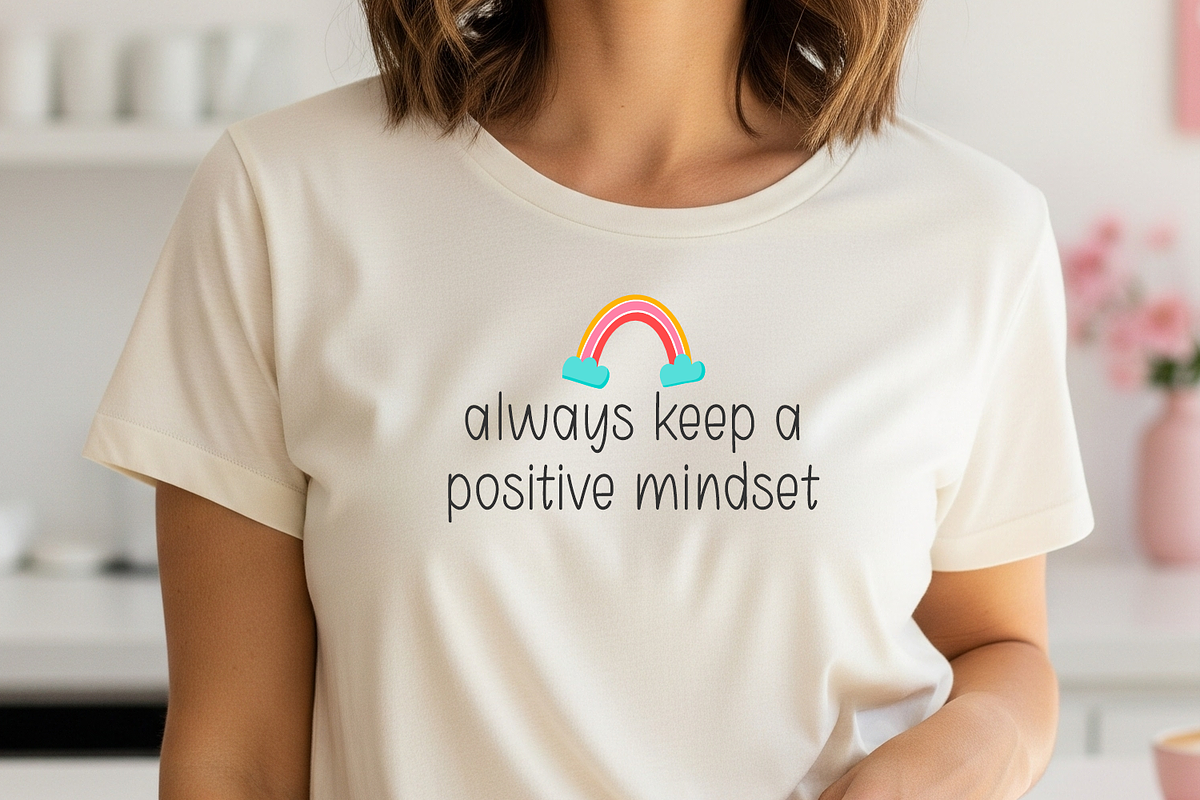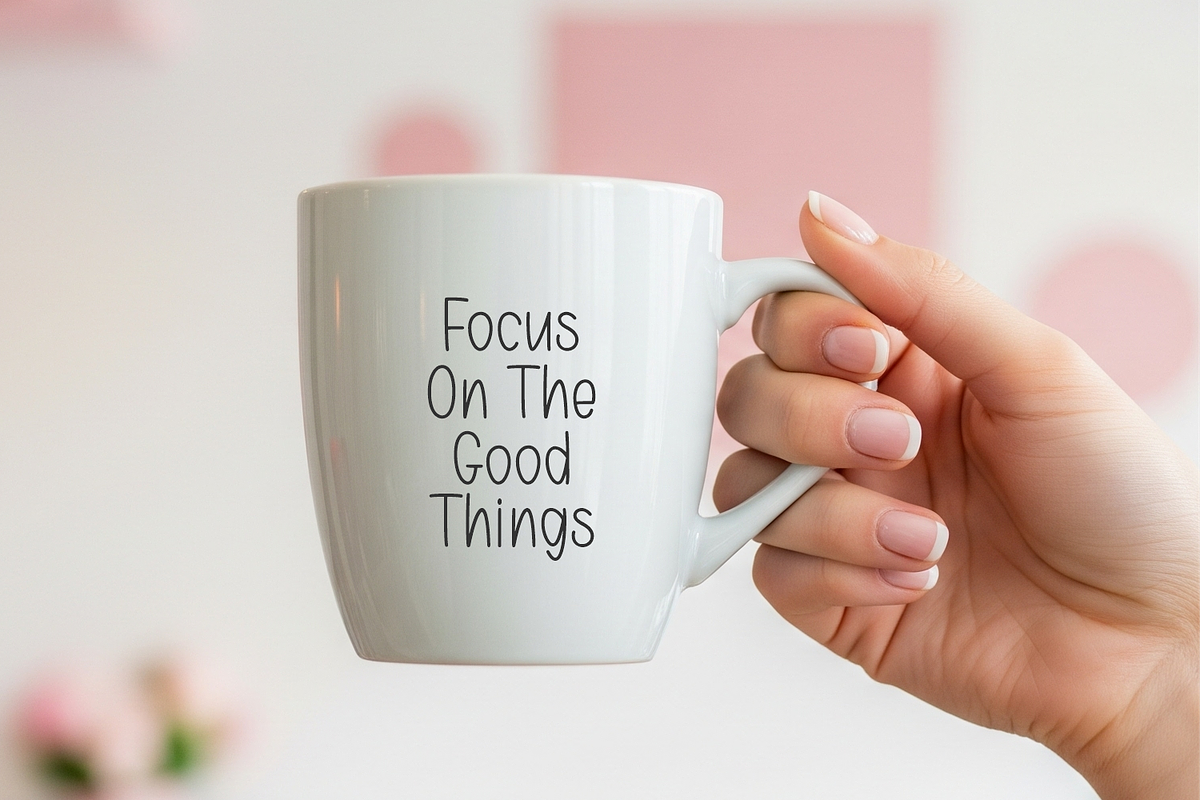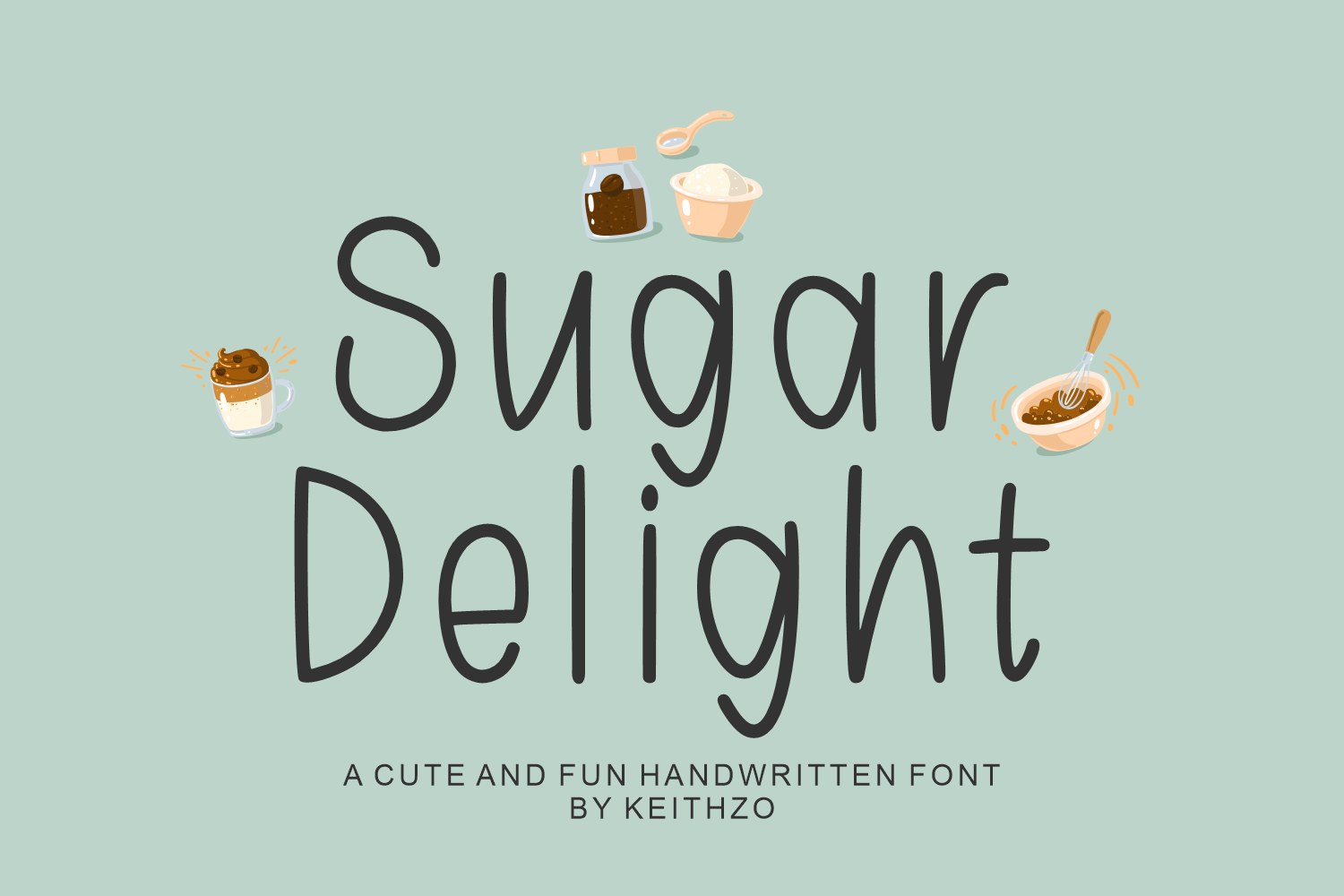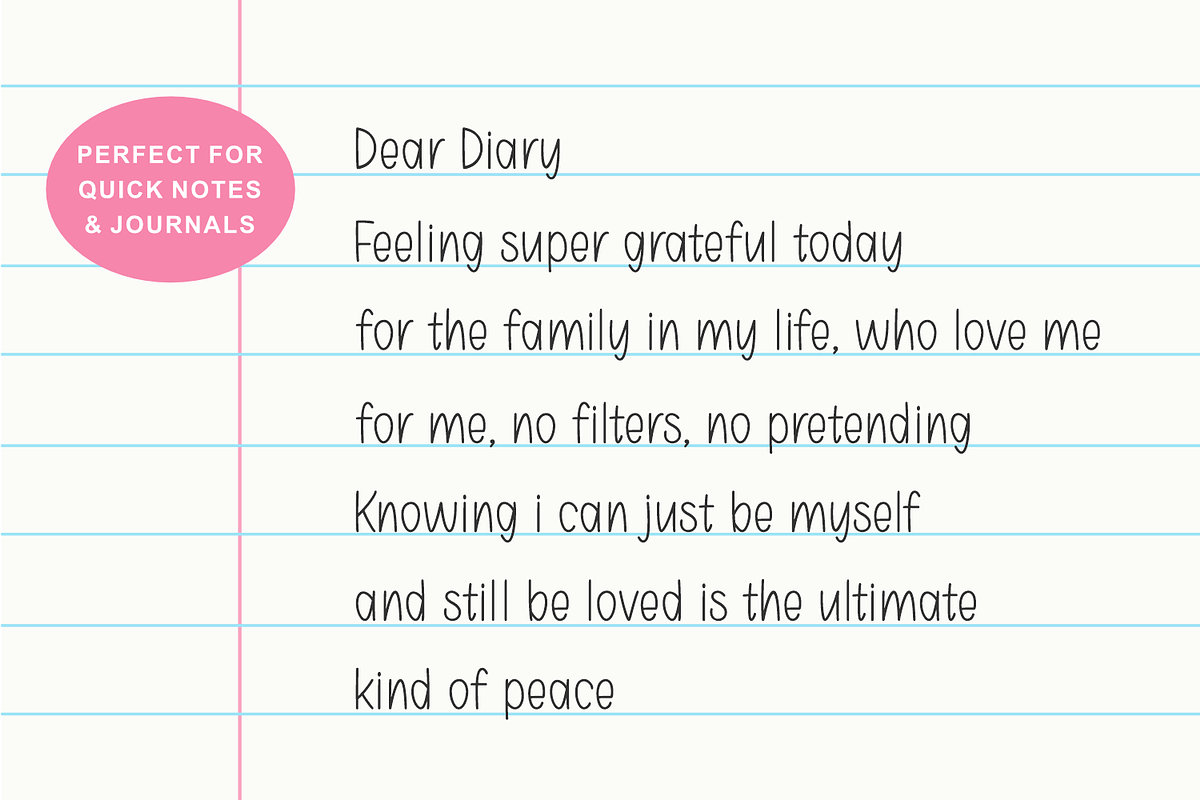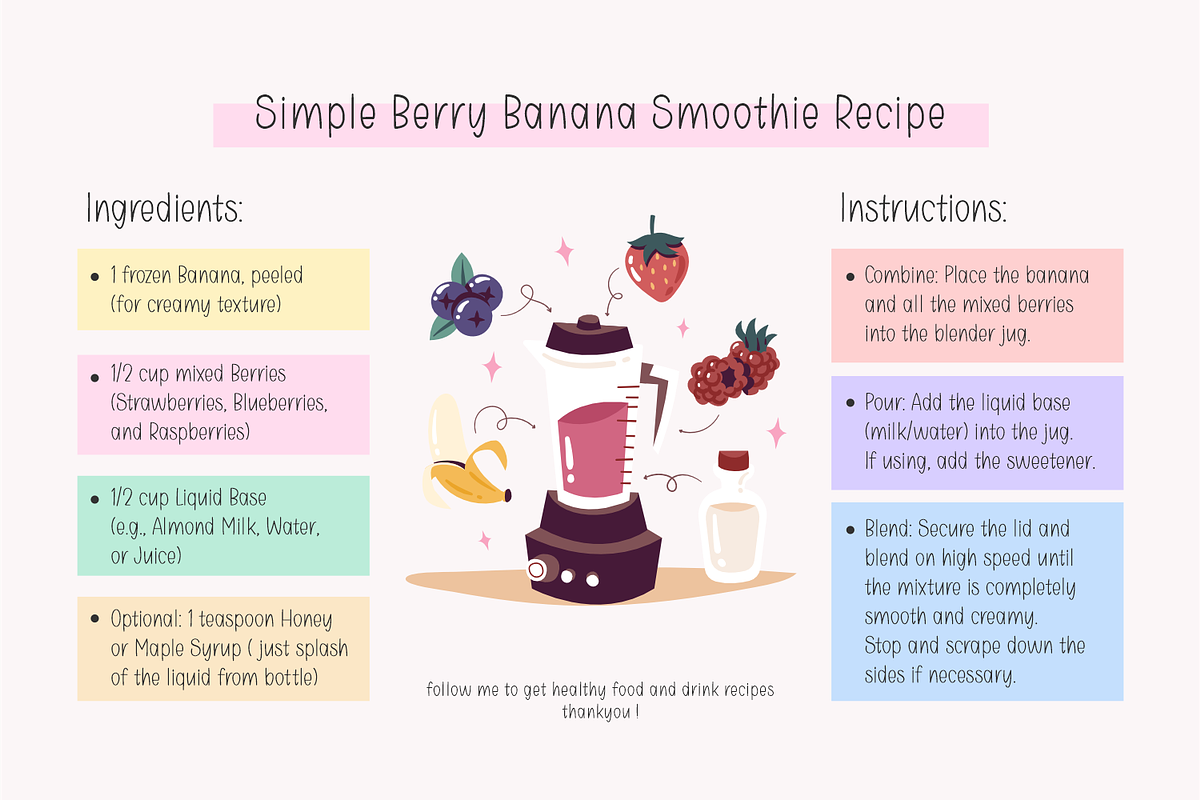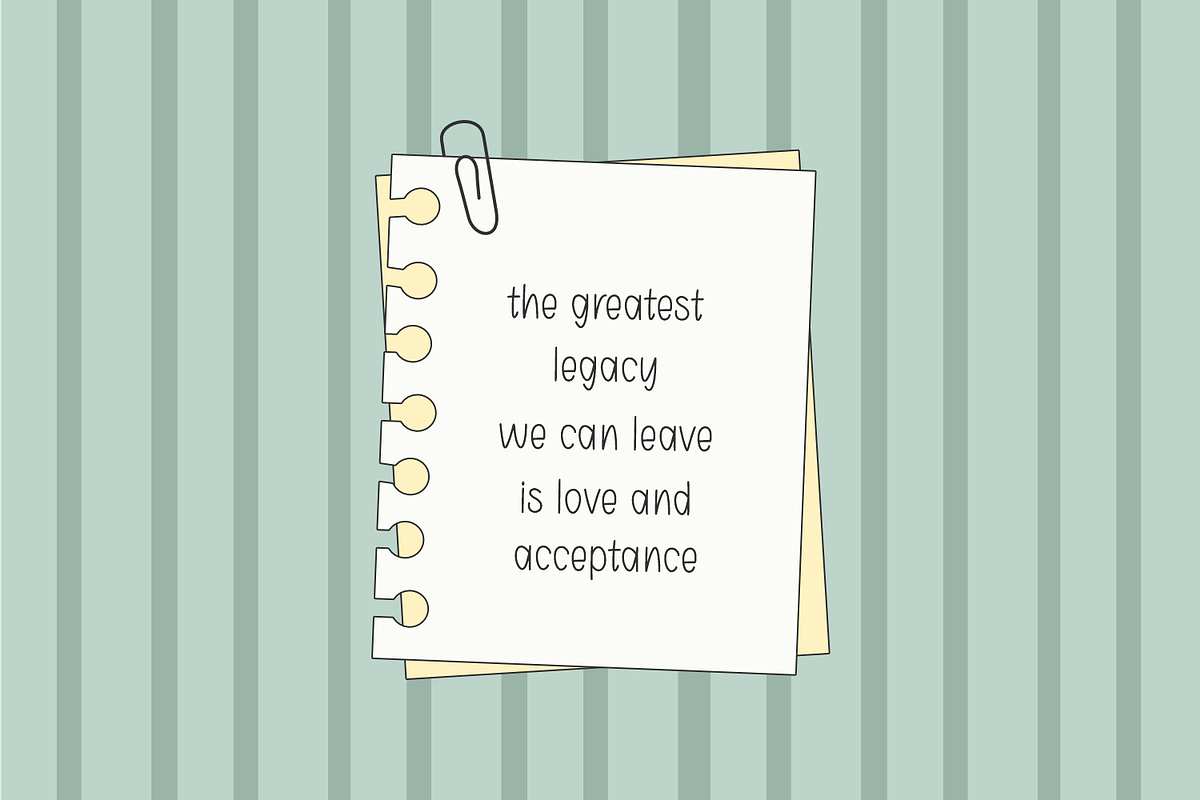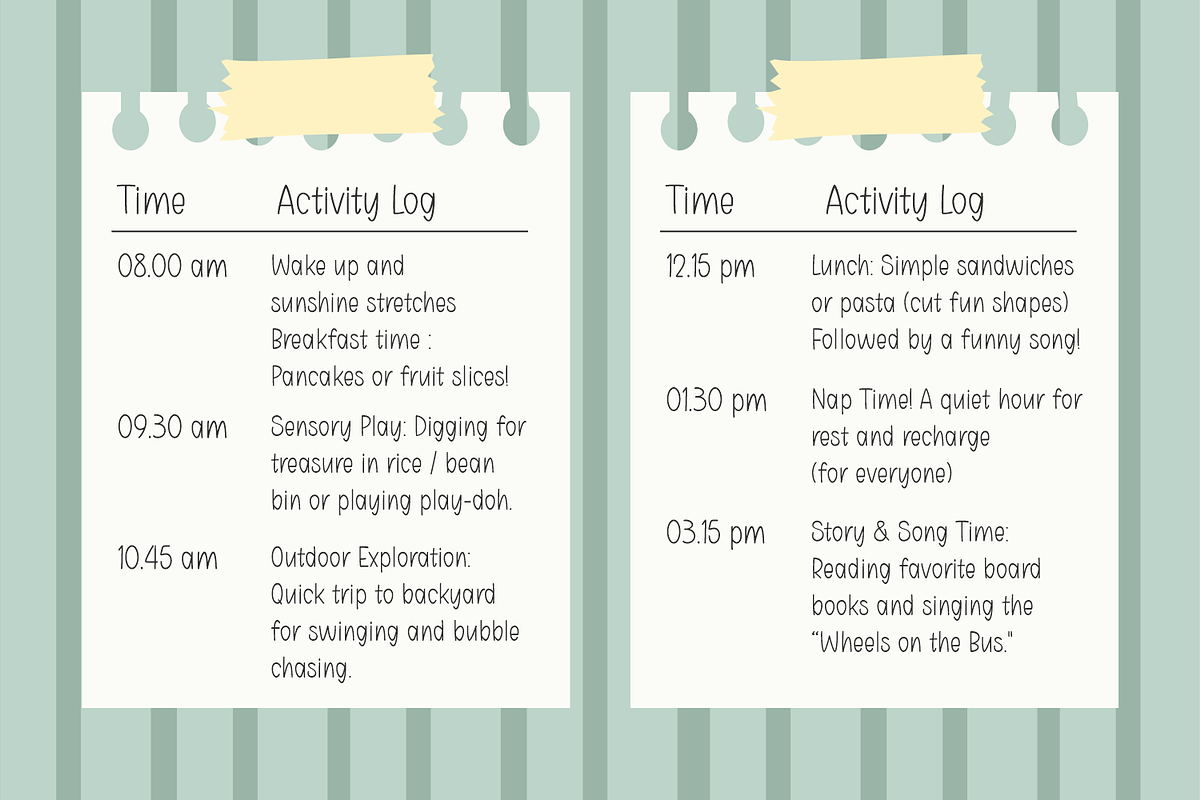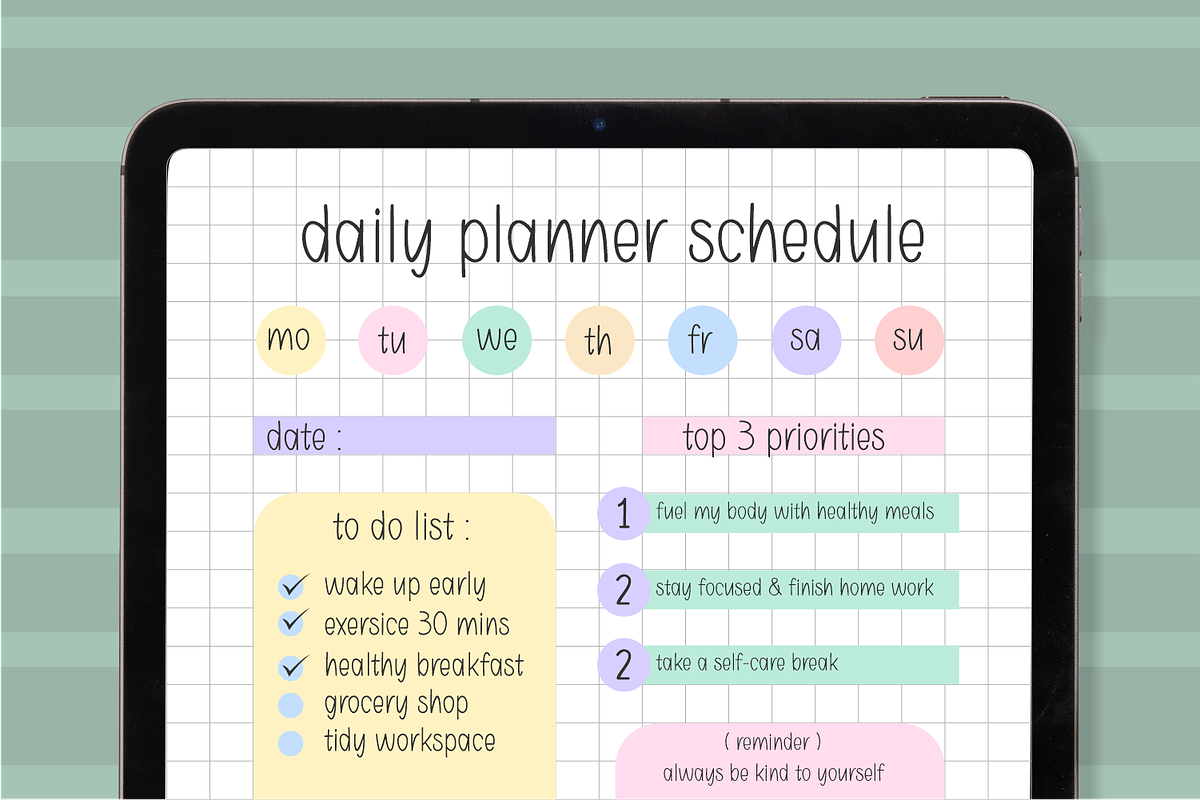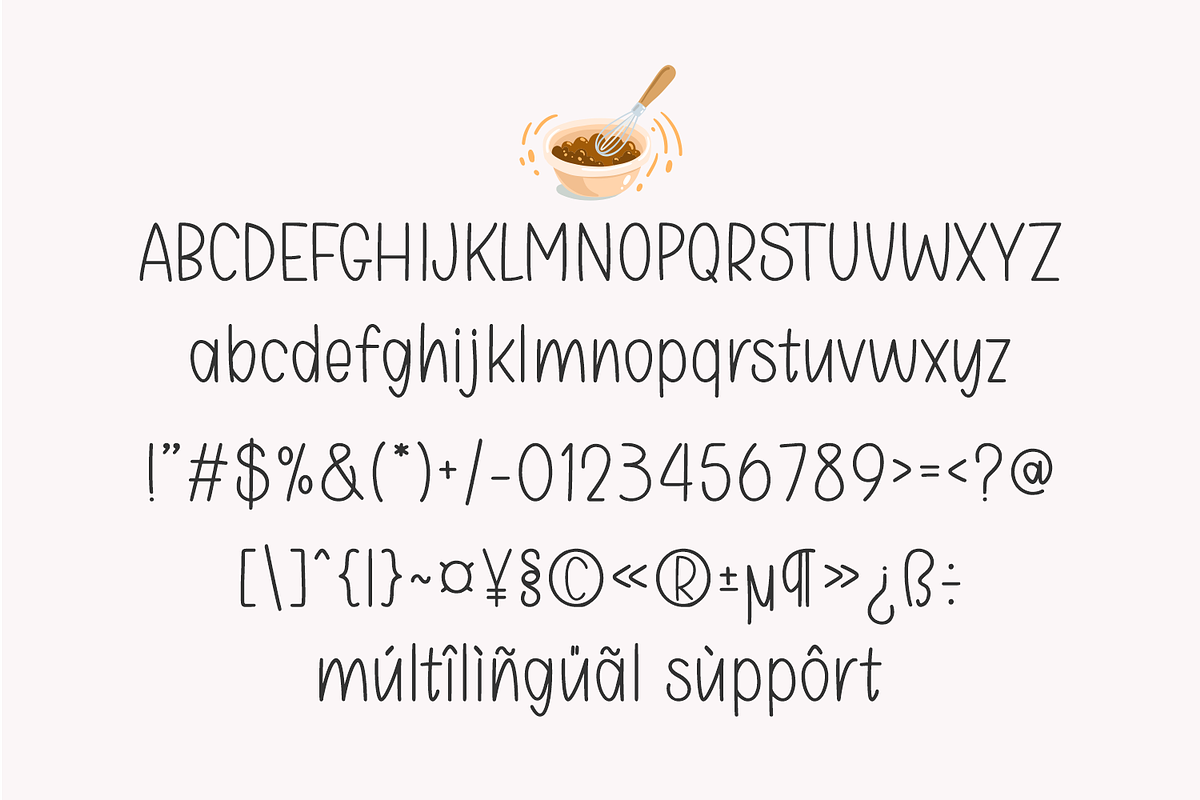
Sugar Delight - Valentine's Font
Introducing Sugar Delight, your new go-to for instantly charming, handmade fonts that sprinkle a dose of enchantment onto any design. This lovely typeface, with its friendly, slightly rounded characters and playful baseline, evokes the heartwarming charm of a handwritten note. From romantic Valentine’s Day cards to heartfelt love letters; from chic gift tags to vibrant romantic quotes – Sugar Delight’s tender, flowing curves fit seamlessly!
Bound to become an essential asset for children’s designs, its distinct, playful style shines in children’s books, school projects, birthday invite cards, educational resources, and kids’ apparel. Why, you ask? Well, Sugar Delight carries an approachable, warm, and jolly aura that translates onto logos, social media announcements, and planner stickers with effortless ease.
Branding your DIY craft businesses, home-baked goods, or your scrumptious treat recipes? Sugar Delight’s bouncy personality will make your brand distinct and instantly memorable. Unwrap Sugar Delight today and invite a dash of joy into your creative endeavors. Experience a world where your designs are always delightful and irresistible!